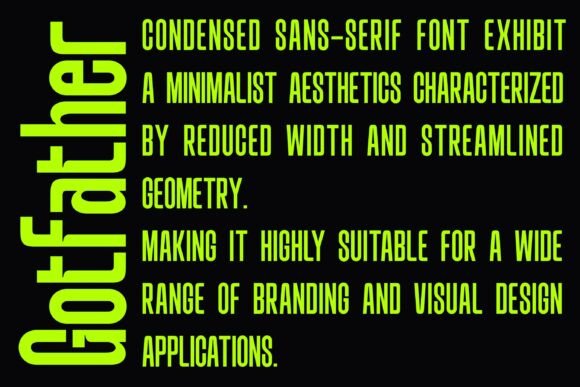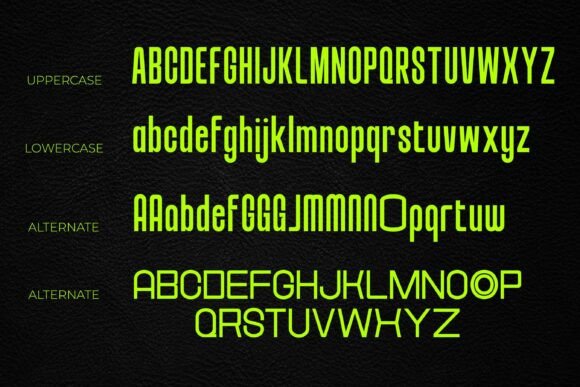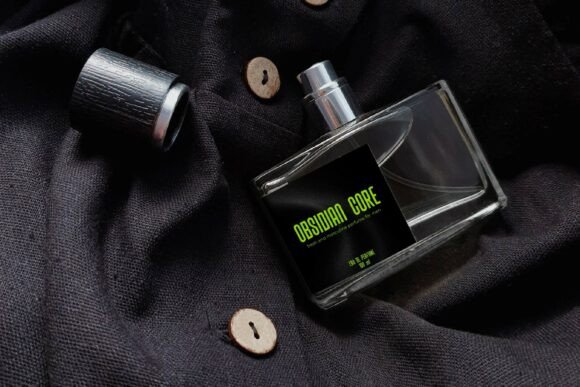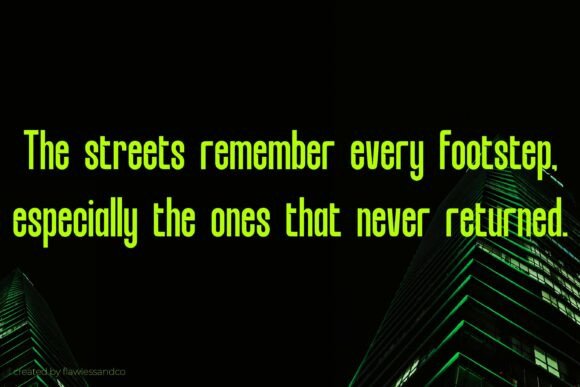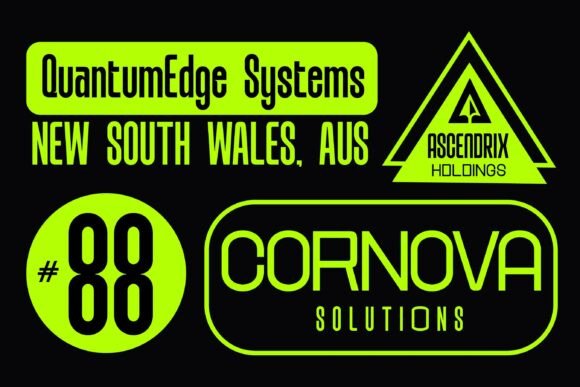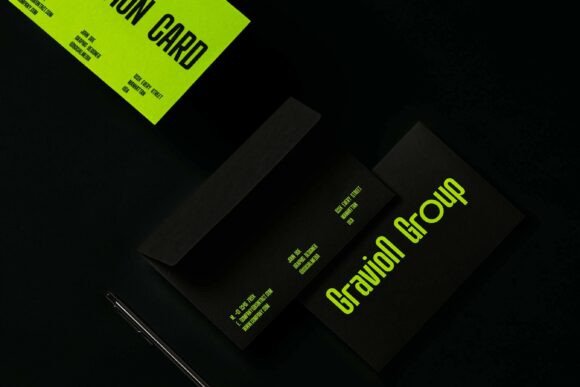
Introducing Gotfather Font: The Ultimate Bold Condensed Sans Serif Typeface
In the world of typography, a font can make or break a design. When it comes to creating striking headlines, innovative branding, and statement logo designs, the right font is essential. That’s where Gotfather Font comes in – a bold condensed sans serif typeface that brings a modern, futuristic attitude with sharp precision and sleek structure.
Design and Characteristics
Gotfather is designed to make a lasting impact with its ultra-tight spacing, clean lines, and confident personality. Its condensed structure allows designers to maximize space without sacrificing style, making it perfect for both digital and print use. The font’s sleek and modern aesthetic is inspired by urban style, tech visuals, and strong editorial layouts.
Key Features of Gotfather Font
- Bold and Condensed: Gotfather’s ultra-tight spacing and bold strokes make it perfect for creating standout headlines and titles.
- Sans Serif: The font’s clean and minimalist sans serif design ensures that your message is conveyed clearly and effectively.
- Modern and Futuristic: Gotfather’s sleek structure and sharp precision give it a modern and futuristic feel that’s perfect for tech-savvy brands.
- Confident Personality: The font’s confident and assertive personality makes it ideal for creating statement logo designs and branding.
Gotfather Font is perfect for designers and crafters who want to create striking and memorable designs. Whether you’re working on a logo design, branding project, or editorial layout, Gotfather has got you covered. Its versatility and flexibility make it suitable for a wide range of design applications, from digital to print.
Use Cases for Gotfather Font
- Headlines and Titles: Gotfather’s bold and condensed design makes it perfect for creating attention-grabbing headlines and titles.
- Logo Design: The font’s confident and assertive personality makes it ideal for creating statement logo designs that stand out.
- Branding: Gotfather’s modern and futuristic aesthetic makes it perfect for tech-savvy brands that want to convey a sense of innovation and forward-thinking.
- Editorial Layouts: The font’s clean and minimalist design makes it suitable for editorial layouts, such as magazines, newspapers, and blogs.
Why Choose Gotfather Font?
With so many fonts available, why choose Gotfather? Here are just a few reasons:
- Unique and Memorable: Gotfather’s bold and condensed design makes it stand out from the crowd and ensures that your message is remembered.
- Versatile: The font’s versatility and flexibility make it suitable for a wide range of design applications.
- Modern and Futuristic: Gotfather’s sleek structure and sharp precision give it a modern and futuristic feel that’s perfect for tech-savvy brands.
In conclusion, Gotfather Font is a bold condensed sans serif typeface that’s perfect for designers and crafters who want to create striking and memorable designs. Its modern and futuristic aesthetic, confident personality, and versatility make it suitable for a wide range of design applications. Whether you’re working on a logo design, branding project, or editorial layout, Gotfather has got you covered.